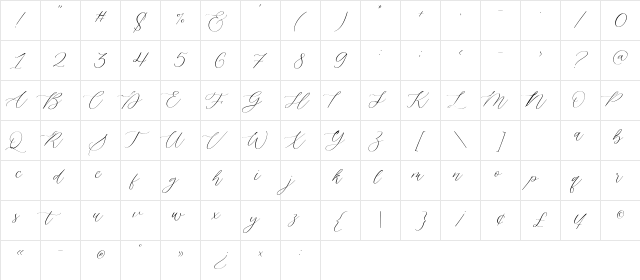
Silverweed Regular
Regular ·  Balpirick Studio ·
DesignerBalpirick Studio
Design Context for Silverweed Typeface
Silverweed is a composed and adaptable typeface that performs quietly and consistently across a wide range of design contexts.